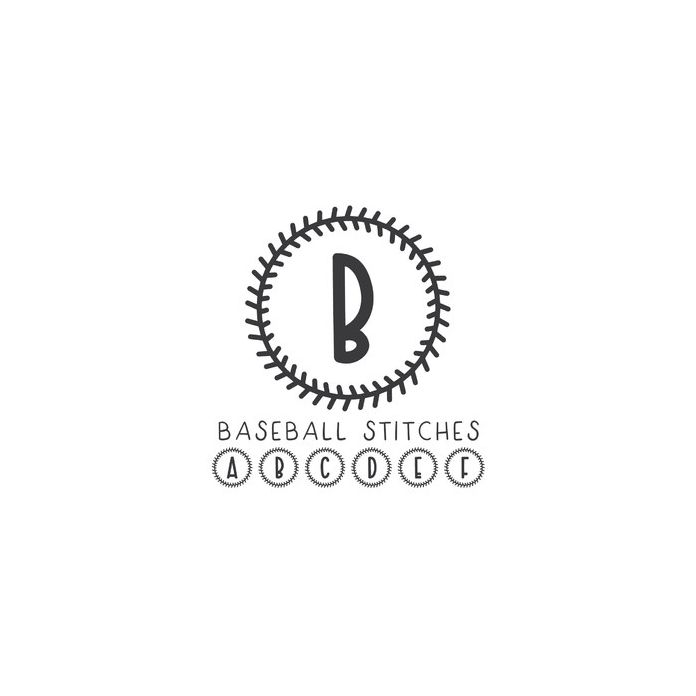
"Baseball Stitches" is a baseball monogram font. This font includes letters A-Z, numbers 0-9 and 1 extra blank stitch frame (use @ key). This font pairs with our font "Aloma Island" if you would like to match it with text.